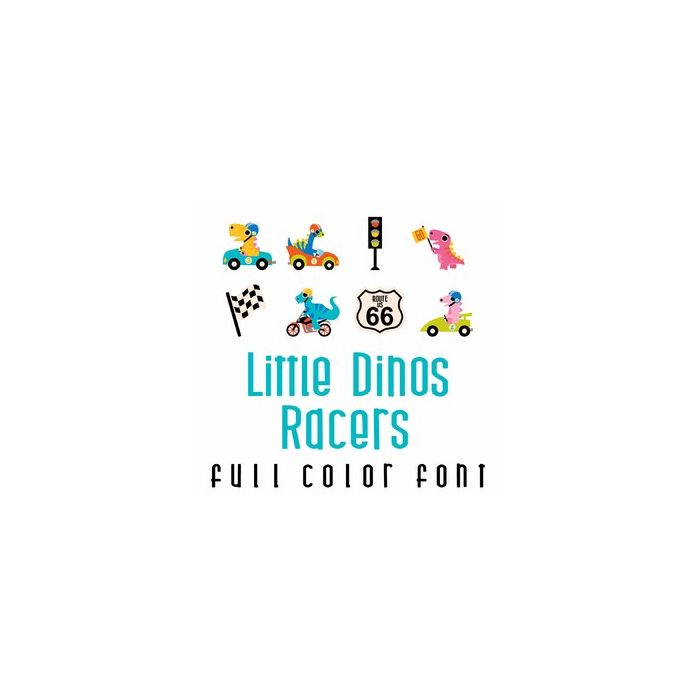
This adorable full-color doodlebat font features 26 cute dinosaurs ready to race on cars, motorcycles, and trucks. Perfect for cards, crafts, gifts, decor, scrapbook pages, planner stickers, and more!